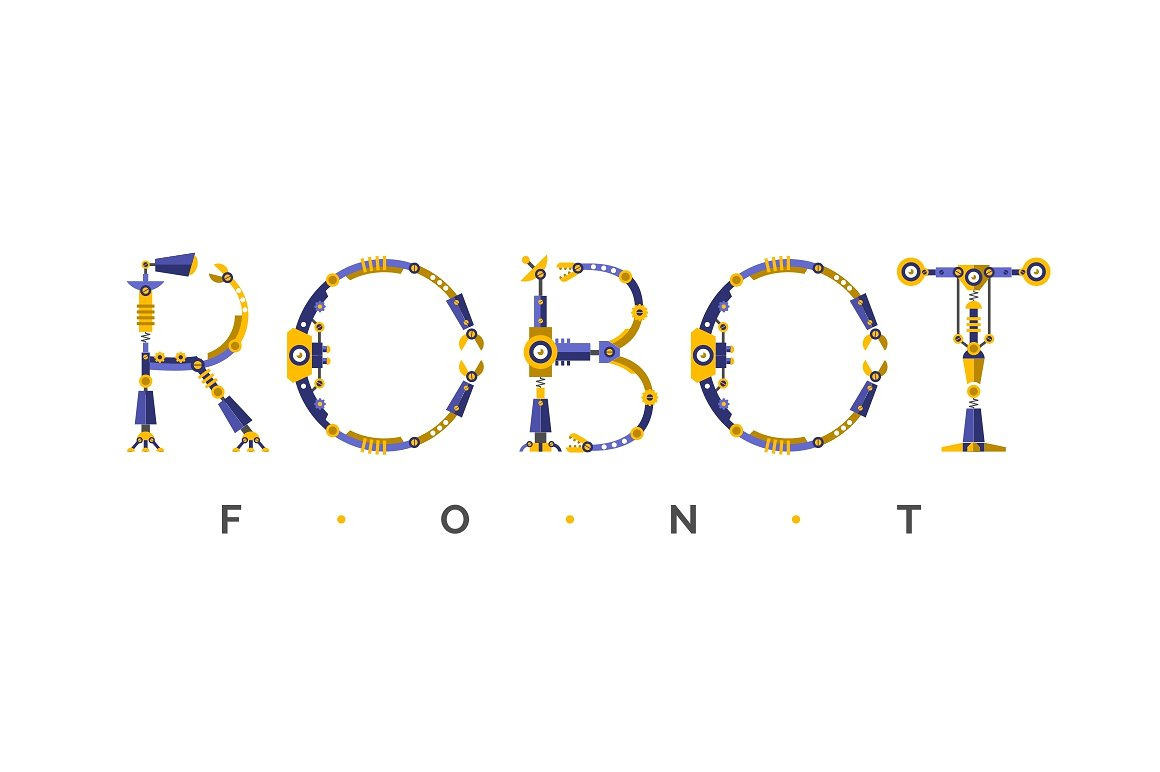
Robot font + Bonus Robots knights
Hi, I want to introduce you a font Robot.
Font Robot is a set of capital letters of the Latin alphabet and numbers. Each sign is a small illustration)! You will be able to form words and any text characters from that font. You can create your own look and use it for logos, labels, posters, magazines, books, cards, packaging.